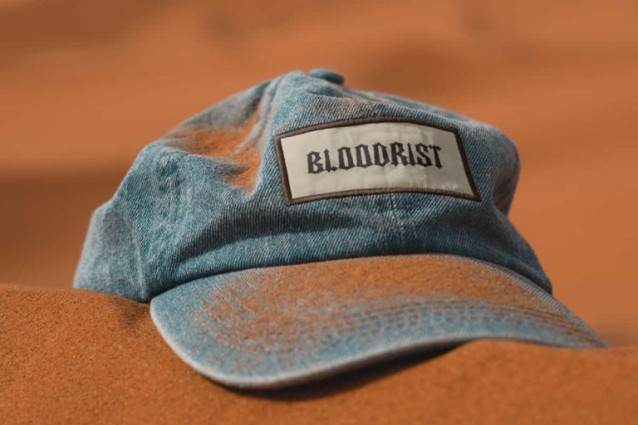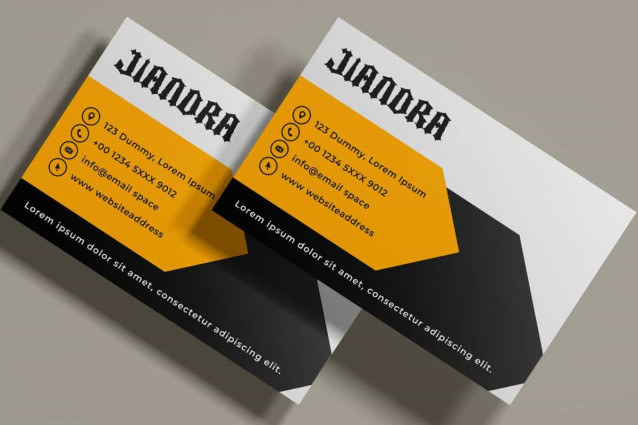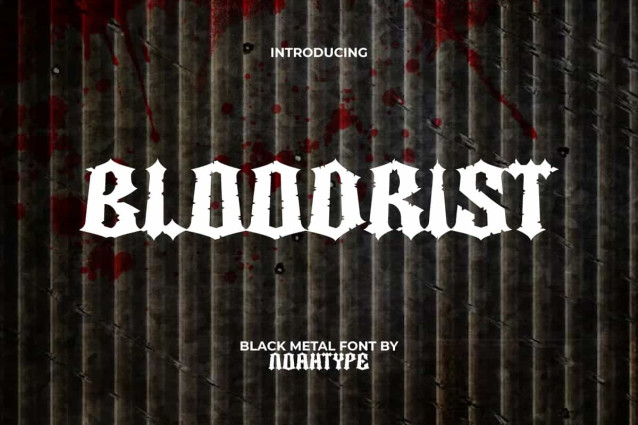
Bloodrist Black Metal Font
Bloodrist Black Metal Font is a blackmetal black hardrock font with horror theme by NoahType. The characters in this font are made rough and scary so that they can make your design look dominant. It will be perfect for any designs, such as custom design, invitation, signage, label, brand image, cover, marketing material, menu, poster, printing, product packaging, quotes, website, and many more!
Bloodrist Font includes full set of ALL CAPS for Uppercase and Lowercase Basic Characters, Numerals, Punctuation, Symbol, and Alternate character. This font will make your design amazing and also a perfect choice for many industries, such as game, movie, music, accessories, advertising, art, café, event or festival, fashion, printing, publishing, etc.